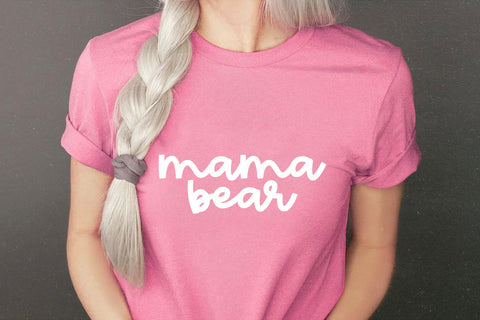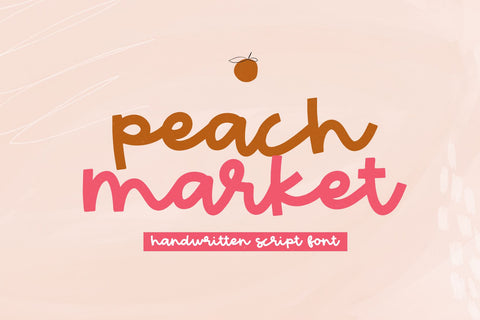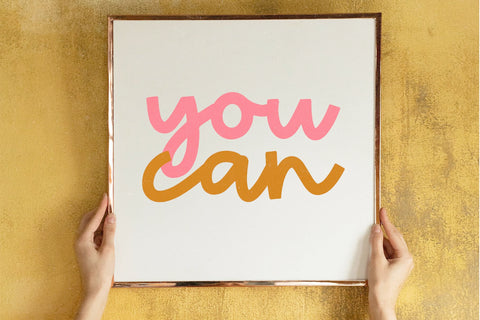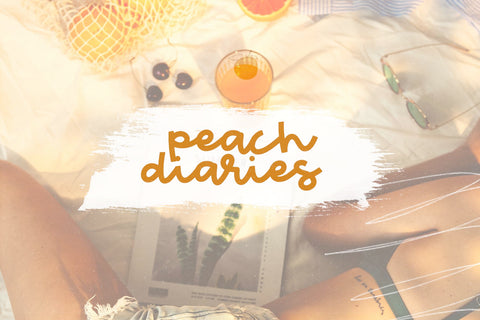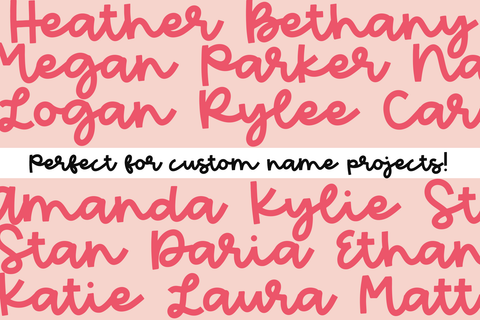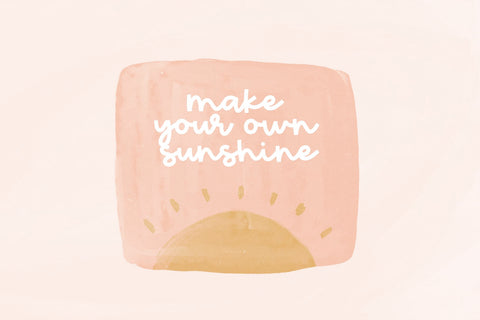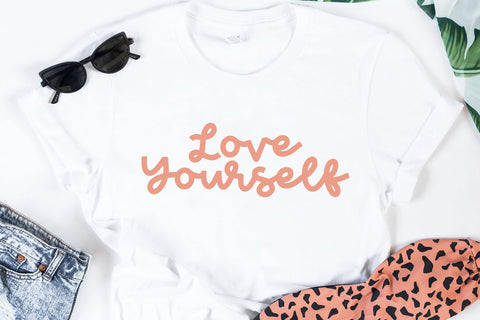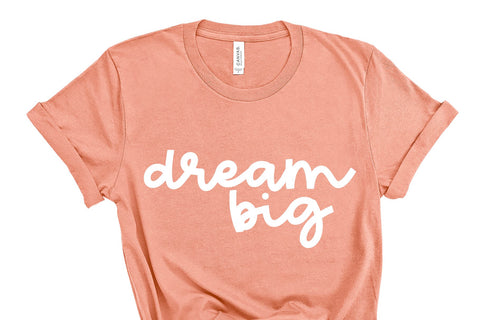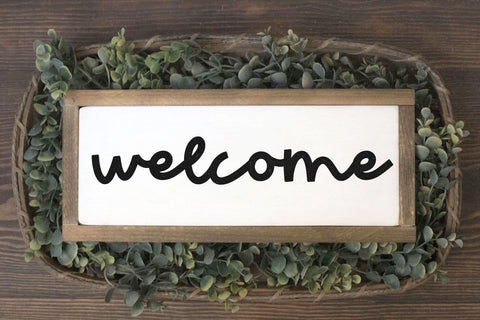
Peach Market - Handwritten Script Font
Peach Market is a cute handwritten script font!
This font is perfect for quotes, shirt designs, websites, branding, children's designs, blogs, logos, invitations and more!